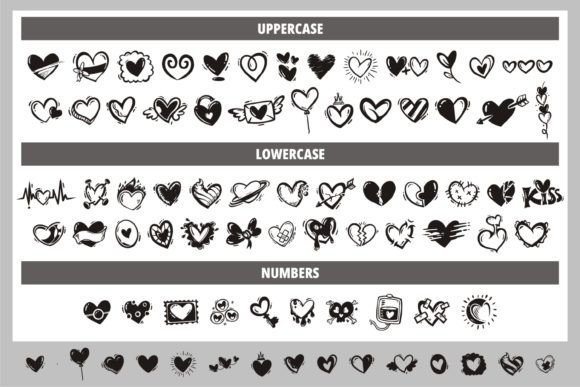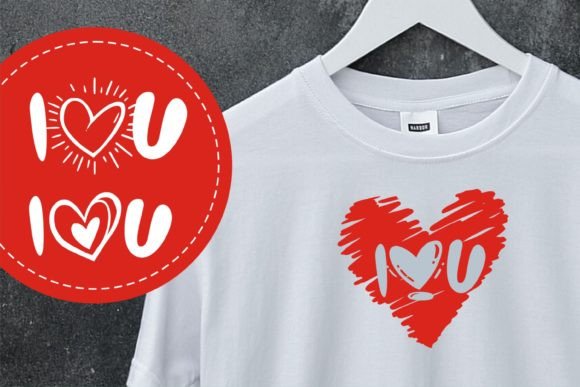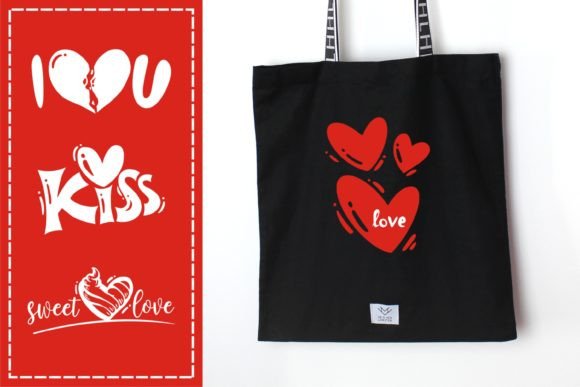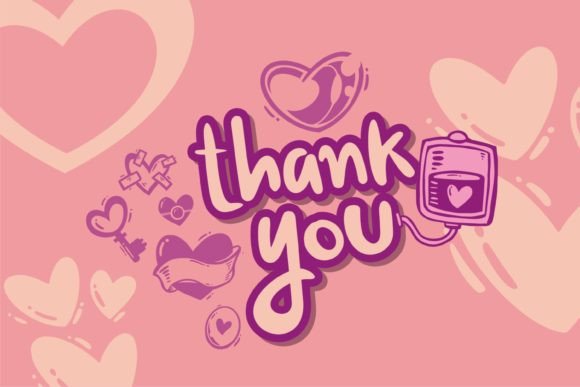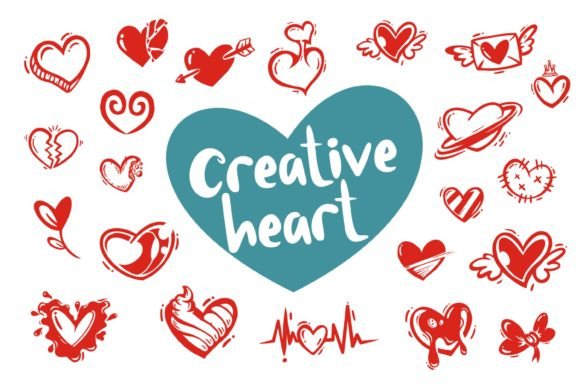
Introducing Creative Heart Font: The Ultimate Romantic Dingbats Font for Designers and Crafters
Are you a designer, crafter, or digital artist looking for a unique and romantic font to add a touch of elegance to your designs? Look no further than Creative Heart Font, a beautiful hand-drawn dingbats font that is perfect for a variety of creative projects. In this article, we’ll explore the features and benefits of Creative Heart Font, and show you how it can help take your designs to the next level.
What is Creative Heart Font?
Creative Heart Font is a romantic and useful dingbats font that is designed to add a touch of whimsy and charm to your designs. This hand-drawn font features intricate and delicate heart-shaped designs that are perfect for a variety of creative projects, from decorating designs or plans to crafting, digital designing, presentations, and greeting card making.
Features of Creative Heart Font
So, what makes Creative Heart Font so special? Here are just a few of its key features:
- Hand-drawn design: Each character in Creative Heart Font is carefully hand-drawn, giving the font a unique and personal touch.
- Heart-shaped designs: The font features a range of heart-shaped designs, from simple and delicate to more intricate and complex.
- Romantic and whimsical: Creative Heart Font has a romantic and whimsical feel that’s perfect for Valentine’s Day, weddings, anniversaries, and other special occasions.
- Versatile: This font can be used for a wide range of creative projects, from digital designs to handmade crafts.
Uses for Creative Heart Font
So, what can you use Creative Heart Font for? The possibilities are endless! Here are a few ideas to get you started:
- Decorating designs or plans: Add a touch of elegance to your designs or plans with Creative Heart Font.
- Crafting: Use the font to create handmade cards, gift tags, and other crafts.
- Digital designing: Add a romantic touch to your digital designs, from social media graphics to website headers.
- Presentations: Use Creative Heart Font to add a touch of whimsy to your presentations and slideshows.
- Greeting card making: Create beautiful and unique greeting cards for special occasions.
Tips for Using Creative Heart Font
Here are a few tips for getting the most out of Creative Heart Font:
- Experiment with different sizes and colors: Play around with different sizes and colors to find the perfect look for your design.
- Combine with other fonts: Pair Creative Heart Font with other fonts to create a unique and interesting look.
- Use for backgrounds and textures: Use the font to create backgrounds and textures for your designs.
Creative Heart Font is a beautiful and versatile dingbats font that is perfect for designers, crafters, and digital artists. With its hand-drawn design, heart-shaped characters, and romantic feel, it’s the perfect addition to any creative project. Whether you’re looking to add a touch of elegance to your designs or create something truly unique and whimsical, Creative Heart Font is the perfect choice. So why wait? Download Creative Heart Font today and start creating!
Key Benefits:
- Hand-drawn dingbats font
- Heart-shaped designs
- Romantic and whimsical feel
- Versatile and multi-purpose
- Elegant and charming